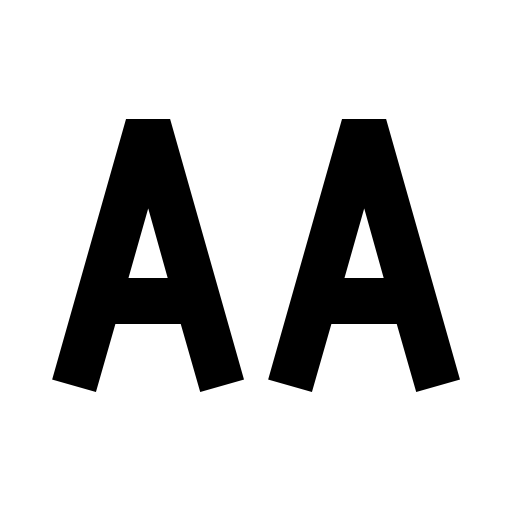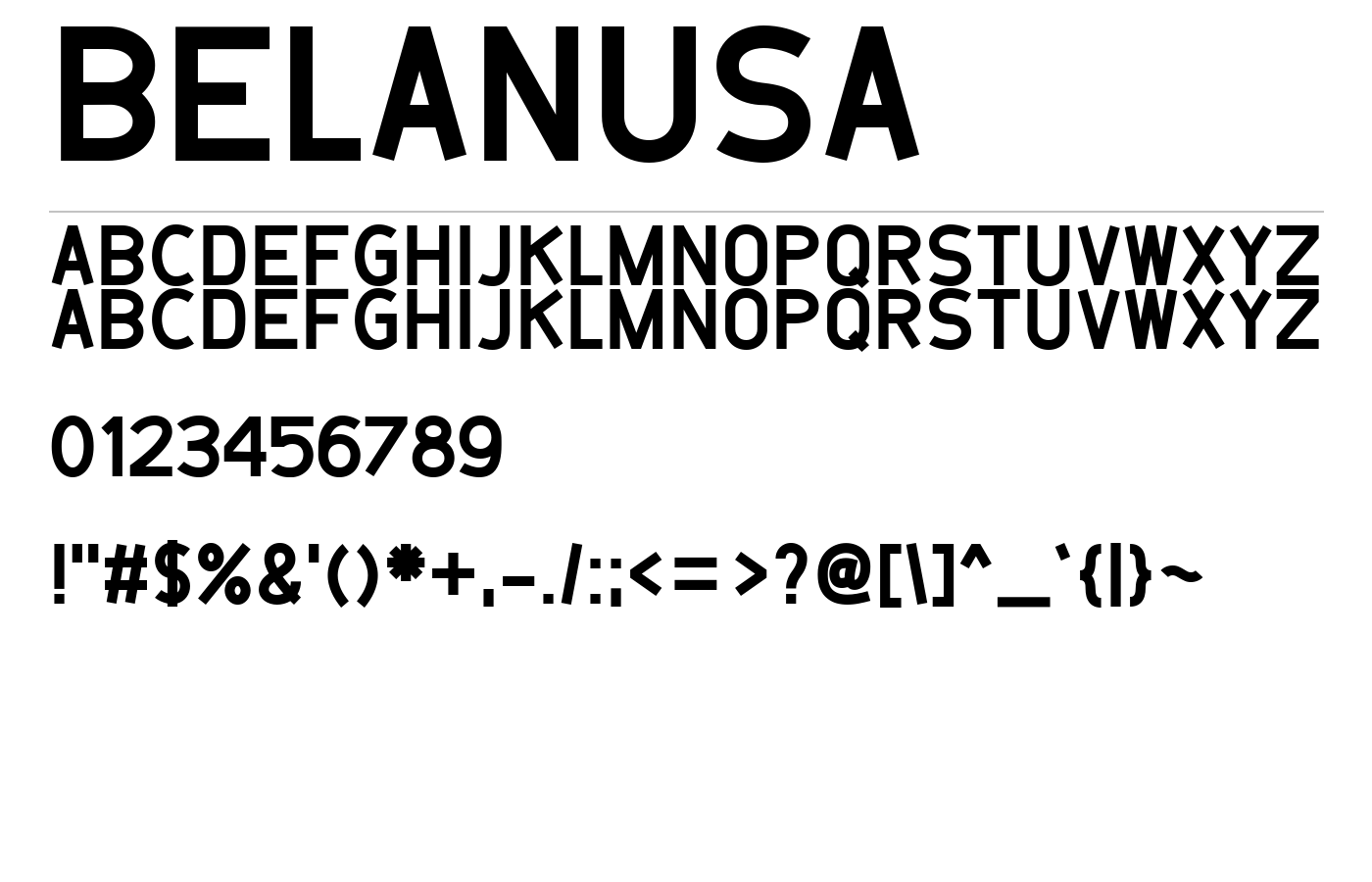
Belanusa is a clean, bold sans serif font with a modern and straightforward design. Its uniform stroke weight and slightly condensed letterforms give it a strong, confident presence, making it ideal for headlines, branding, and editorial use where clear, impactful communication is needed. This font’s simplicity and geometric style lend it a versatile, professional feel that works well across digital and print media.
Belanusa Font
About Belanusa Font